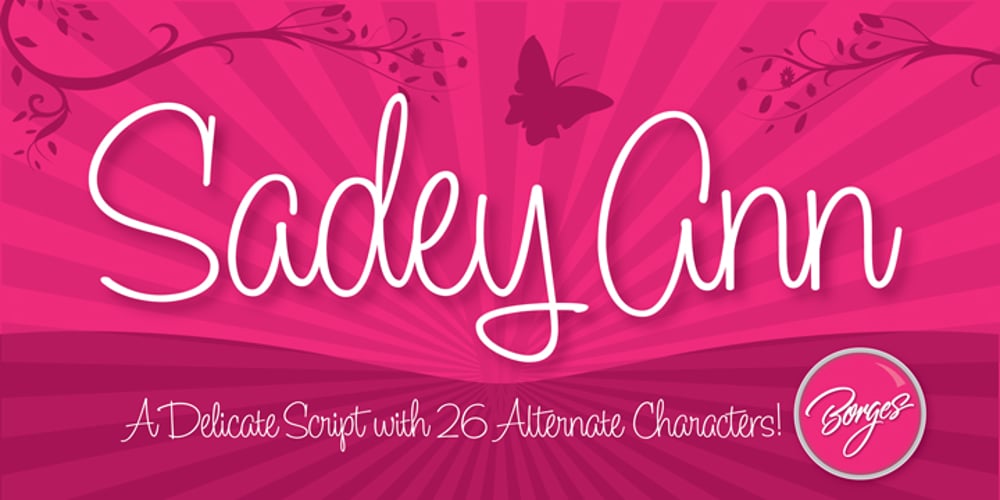
Sadey Ann Font Family was designed by Charles Borges de Oliveira and published by Borges Lettering. Sadey Ann contains 1 styles and family package options. A nice delicate script made for my little girl, Sadey. This penline script has 26 alternate characters.